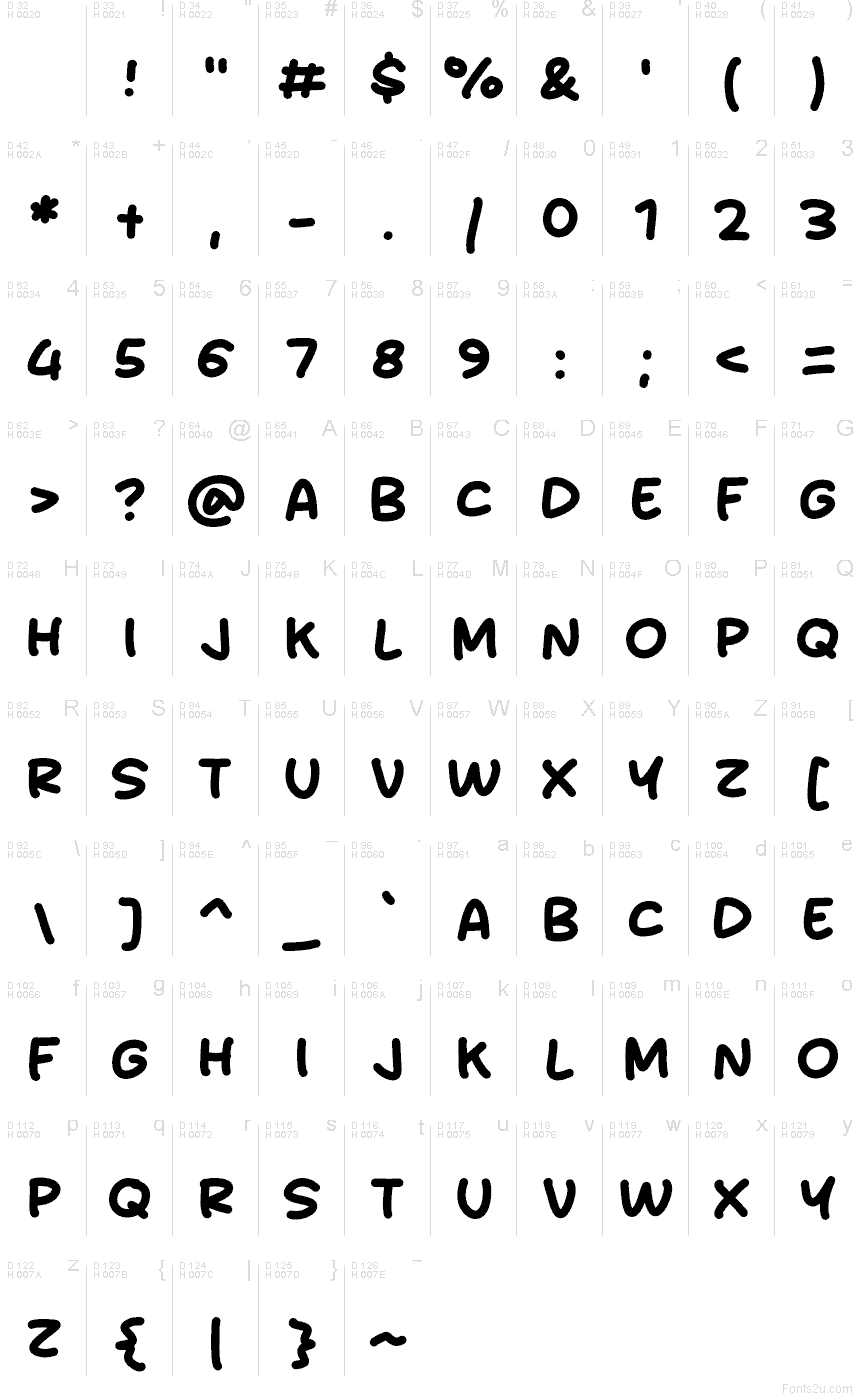
Lovely Person from Origin Type is a free handwritten display font with broad, rounded capitals and the easy swing of marker lettering. Softly blunted ends keep the uneven forms warm and direct.
Its hand-painted sign character suits food branding and market-stall signage, especially when a name should feel made on the spot. The same loose shapes can bring a friendly voice to children's activity covers and cheerful event posters. It is most convincing in logos that need the immediacy of a hand-drawn shop sign.